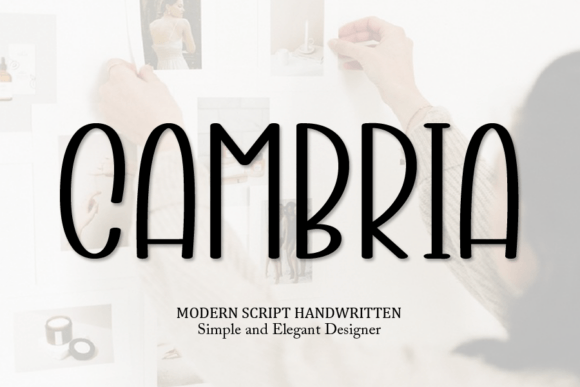
Fonts can do more than display words — they can shape a mood, tell a story, and bring personality to your design. Among the many fonts loved by creative professionals, Cambria Font stands out for its classic charm mixed with the effortless feel of a handwritten script.
Created in a random and free-flowing style, Cambria isn’t your usual stiff or overly formal script. Instead, it captures a sense of movement and human touch — a font that feels alive. Whether you’re designing for digital platforms like YouTube and Instagram, or crafting logotypes and posters, Cambria brings a touch of authenticity and artistic energy.
What Makes Cambria Font Special?
Cambria isn’t just a typeface; it’s a blend of classic script beauty and modern design practicality. Here’s why designers love it:
✨ Authentic Handwritten Feel
Unlike rigid calligraphy, Cambria’s letters dance across the page with casual elegance. Each stroke feels natural and unscripted.
🎨 Classic Yet Modern
While rooted in script tradition, Cambria’s clean lines give it a contemporary twist — perfect for brands and projects that want to appear timeless yet current.
💻 Versatile for Digital & Print
Whether you’re designing a YouTube banner, an Instagram post, a product label, or a book cover, Cambria adapts beautifully.
🖋 Organic Personality
Cambria’s random, slightly irregular letterforms create a warm, human feel that resonates with audiences seeking authenticity.
Where to Use Cambria Font
Cambria’s unique balance of classic and handwritten style makes it suitable for almost any creative project:
✅ Logo Design & Branding – Stand out with a logotype that feels handcrafted and personal.
✅ Apparel & Merchandise – T-shirts, tote bags, and hats gain a friendly, artistic look.
✅ Social Media Graphics – Instagram stories, YouTube thumbnails, and Pinterest pins come alive with Cambria’s expressive style.
✅ Posters & Flyers – For events, music gigs, art shows, or product launches.
✅ Book & Magazine Covers – From romantic novels to creative magazines, it adds charm and readability.
✅ Web & Blog Headers – Give websites a unique voice that feels personal and inviting.
✅ Video Graphics – Lower thirds, intros, or titles on YouTube or Instagram Reels.
✅ DIY & Craft Projects – Perfect for custom stickers, digital scrapbooking, or hobby designs.
Tips for Designing with Cambria Font
✅ Pair with simple fonts: Cambria’s handwritten flow pairs beautifully with clean sans-serifs (like Montserrat or Lato) to create balance.
✅ Use different sizes: For dynamic designs, combine large Cambria headlines with smaller subtext.
✅ Add texture or color: Layer Cambria over watercolor textures or gradients to enhance its artistic feel.
✅ Embrace white space: The casual script feels more elegant when the design isn’t crowded.
✅ Mix cases: Experiment with uppercase, lowercase, or title case for different moods.
Creative Ideas to Inspire You
🖼 Poster for an indie film: Use Cambria as the title font layered over a moody background.
💍 Wedding invitations: Add romantic flair by pairing Cambria with delicate serif fonts.
🎵 Album or playlist covers: Let Cambria’s handwritten charm reflect the artistic spirit of your music.
📦 Product packaging: Labels for handmade candles, organic skincare, or gourmet food.
🌿 Lifestyle blogs: Stylish blog headers that feel approachable and fresh.
🎉 Event promotions: Flyers for art fairs, craft shows, or creative workshops.
Free Alternatives to Cambria Font (Handwritten Style)
If you’d like similar free script fonts, consider:
• Pacifico – a friendly, casual script.
• Dancing Script – lively and elegant.
• Great Vibes – for a more classic romantic feel.
• Allura – simple, graceful strokes.
Q1: Is Cambria a handwritten font?
Traditionally, Cambria is a serif font designed for readability. But creative versions or adaptations (like Cambria Script) bring a handwritten, free-flowing style.
Final Thoughts: Classic Meets Creative
Cambria Font captures the best of both worlds: classic script beauty and modern, free-flowing spontaneity. It adds warmth to digital and print projects, helps brands appear authentic, and turns ordinary words into visual art.